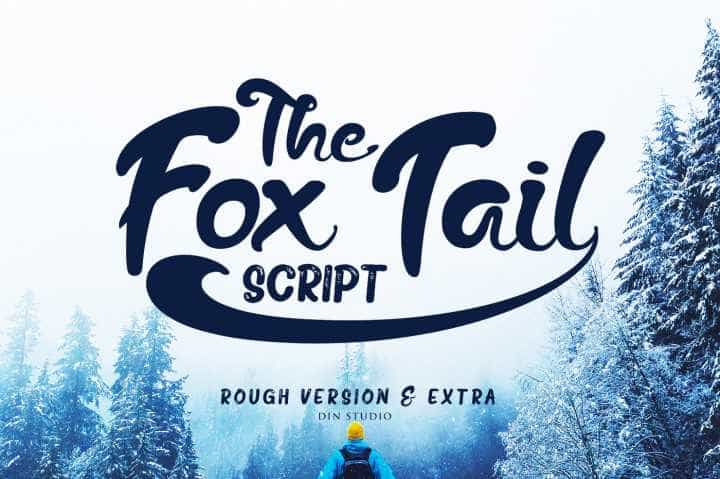
Hi designer! This is a din studio for your creation, so here it is The Fox Tail Font. Therefore, from the very beginning, Din Studio designed the font with this ink pen and published it within the Din Duo and Extras series. Because Fox Tail embodies the 80s retro style and the tail of wagging foxes nowadays, this chic icon can be perfect for wedding invitations and thank-you cards, quotes greeting cards, logos, and business cards; it is also gravitated to the watercolour or ink effects.